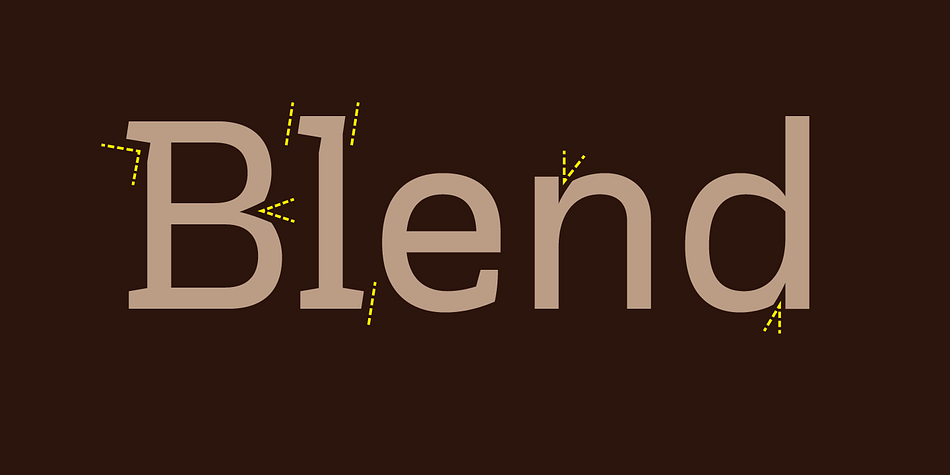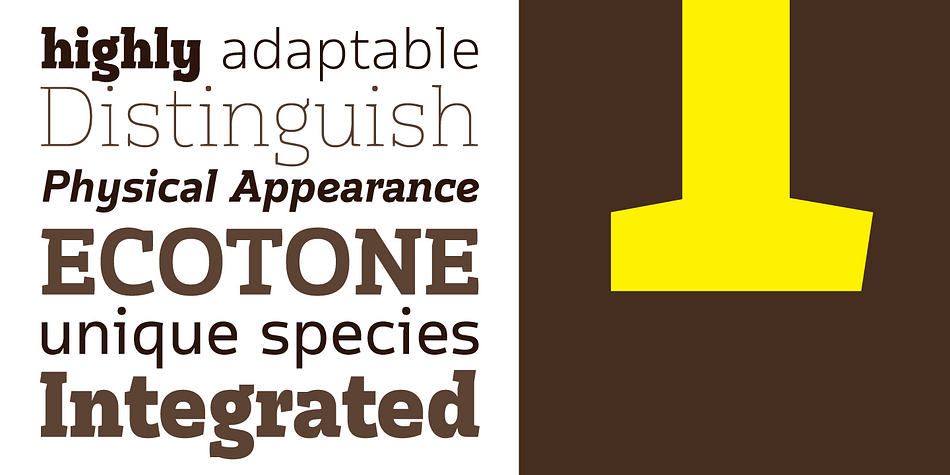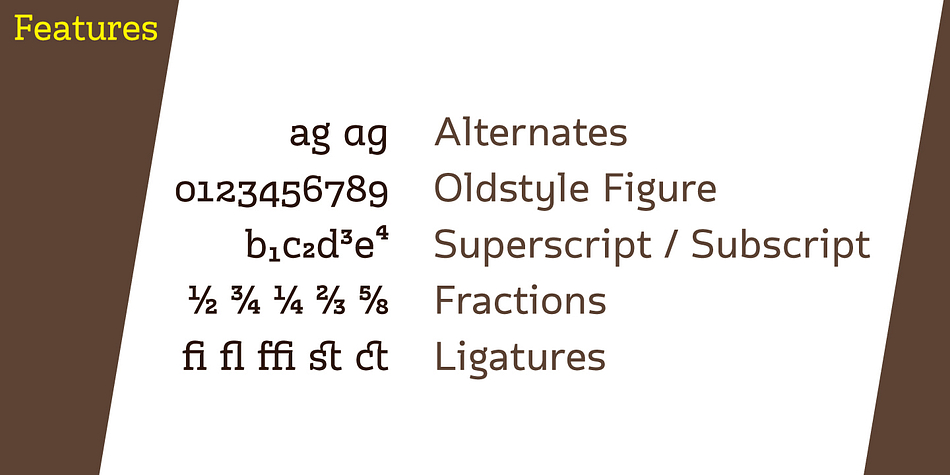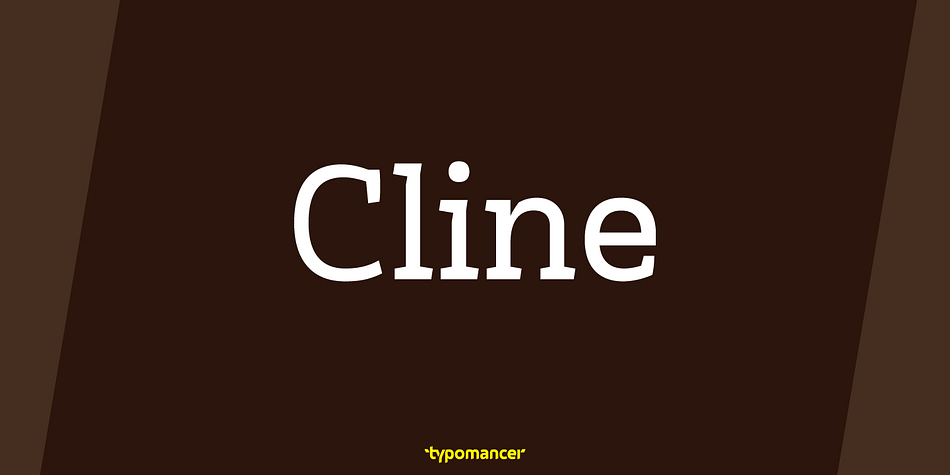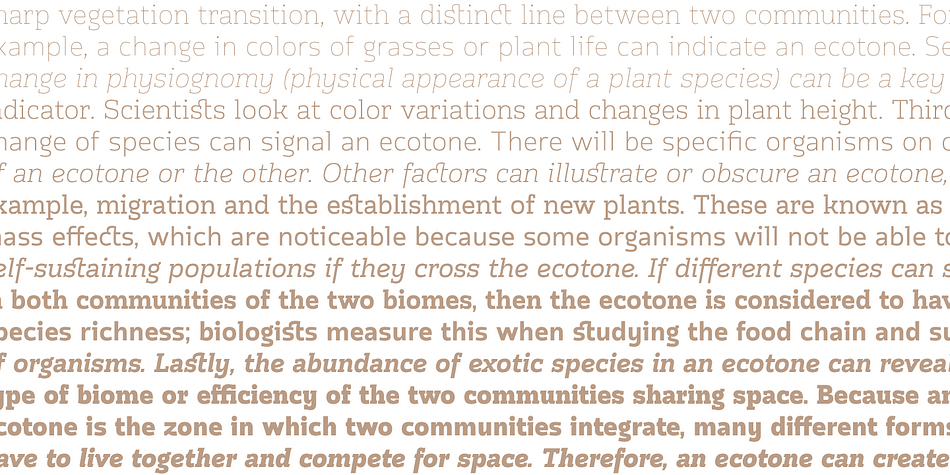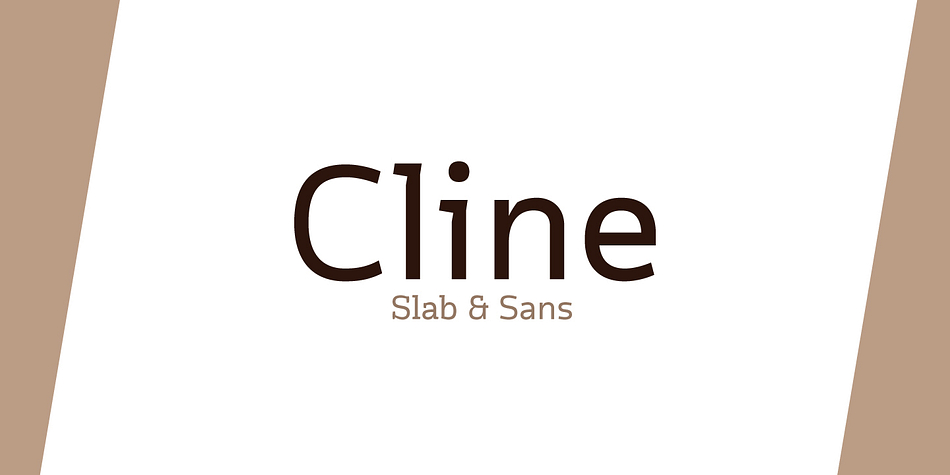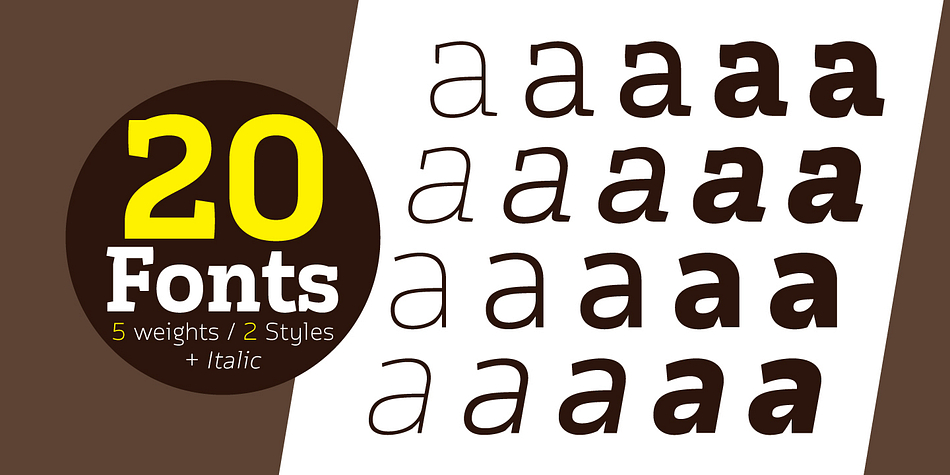
Cline is a sans serif and slab serif font family. This typeface has twenty styles and was published by Typomancer.
Cline is a family of slab and sans typefaces. They seamlessly connect with each other.
All styles have a same width and changing font weight will not affect your typesetting. The family is suitable for text and headline.